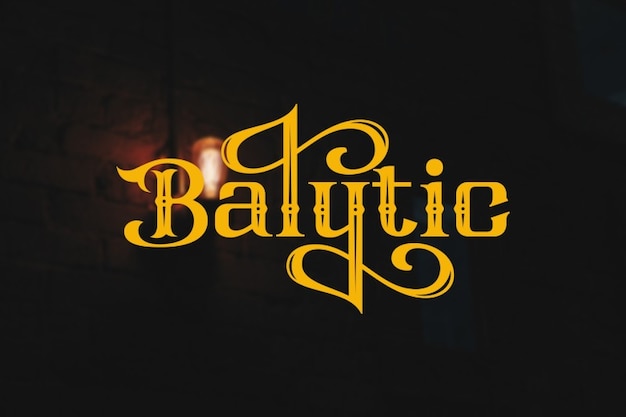
Balytic Font
It is the epitome of cool classic with a hint of gothic charm. Its bold, timeless letters exude a sense of old-school class, reminiscent of medieval manuscripts. Yet, it also carries a modern twist, making it perfect for contemporary designs. Whether you're designing a vintage-inspired poster or adding a touch of elegance to your brand, "Balytic" bridges the gap between classic and cool effortlessly.